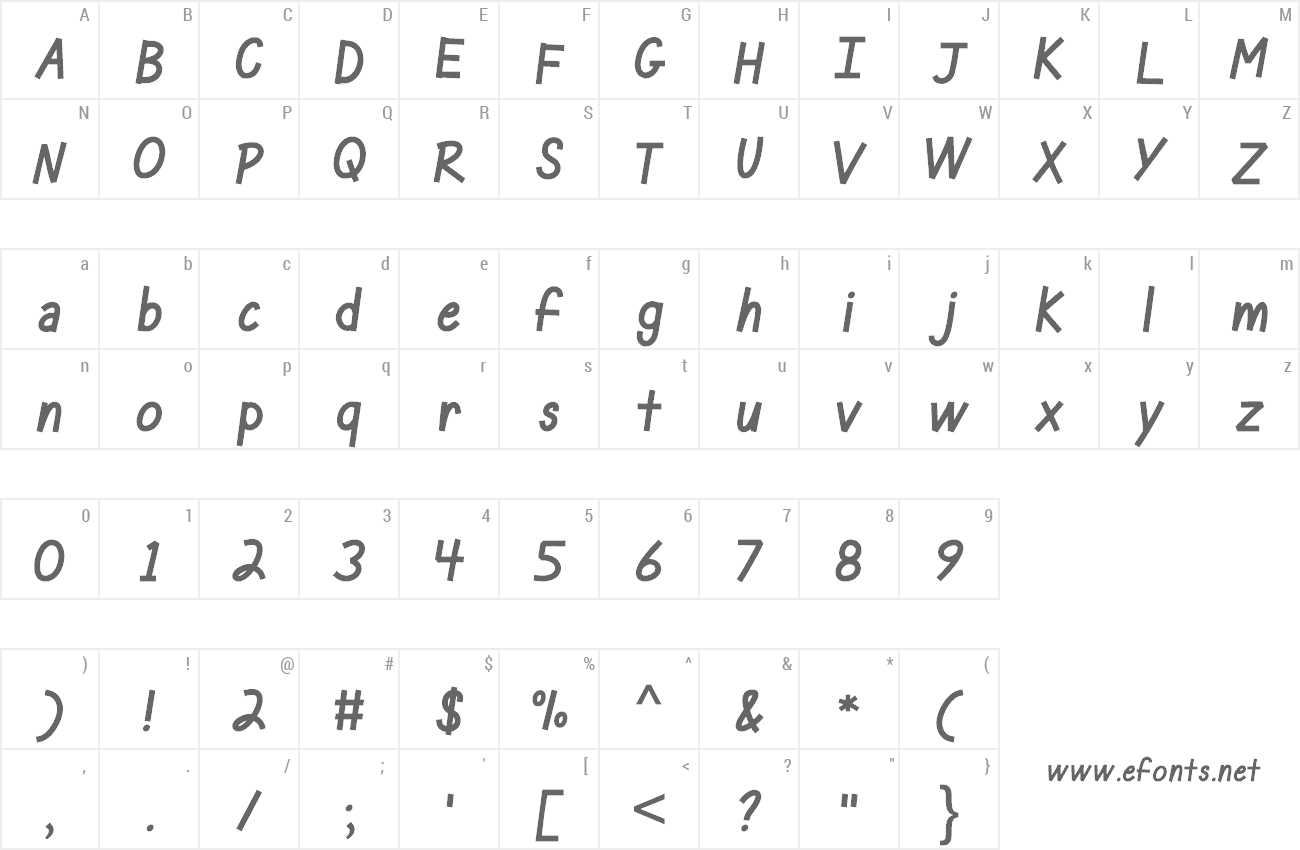
This was made for the Rusty The Edgehog comic series by Roland Hüse (of course you can use it too). It is really fun font that is perfect for comics :D The website: http://rustytheedgehog.com/ My fonts are free for PERSONAL use only. For any commercial use (anything you make money from), you must send a paypal donation. Please visit my website http://mistifonts.com/ to see my affordable prices. |